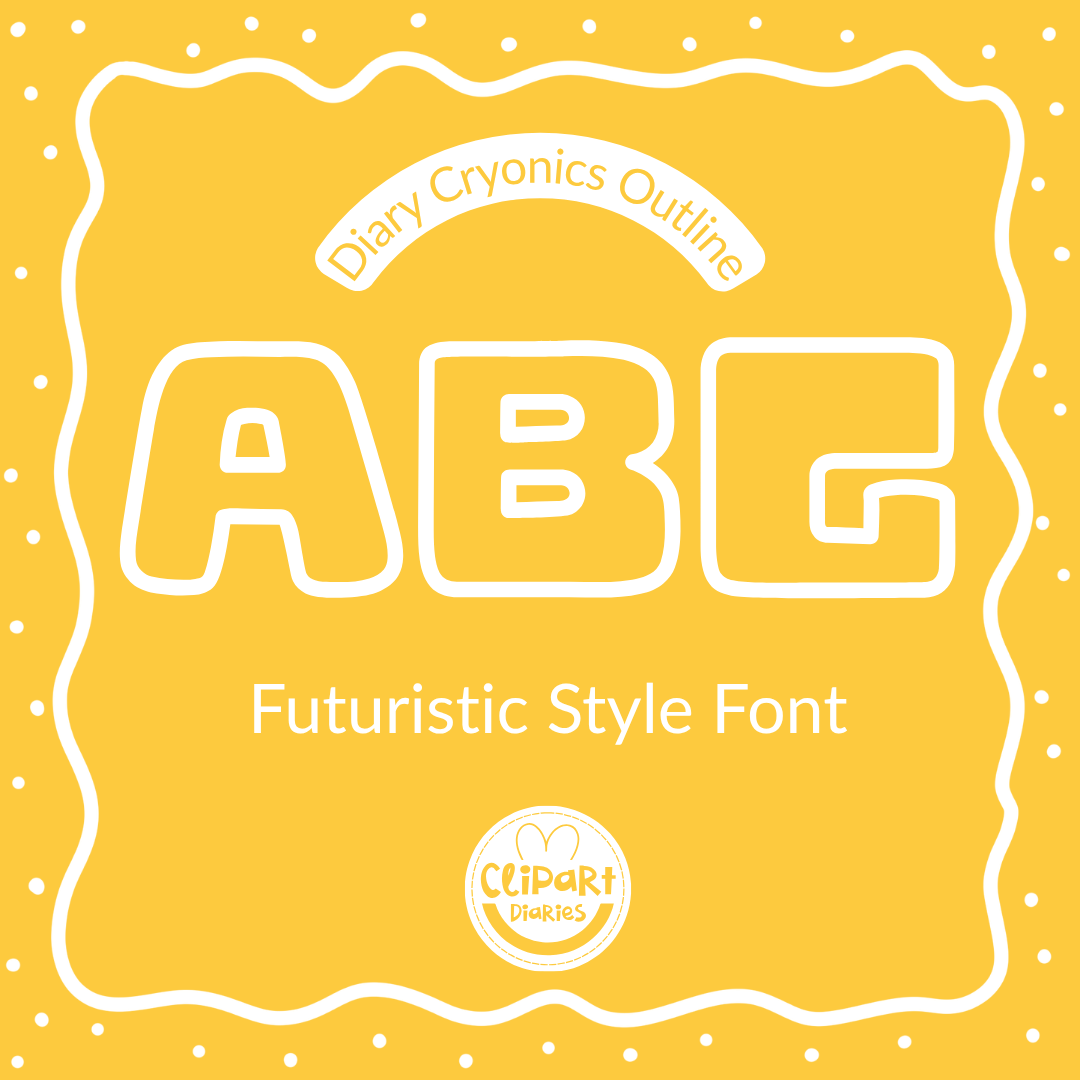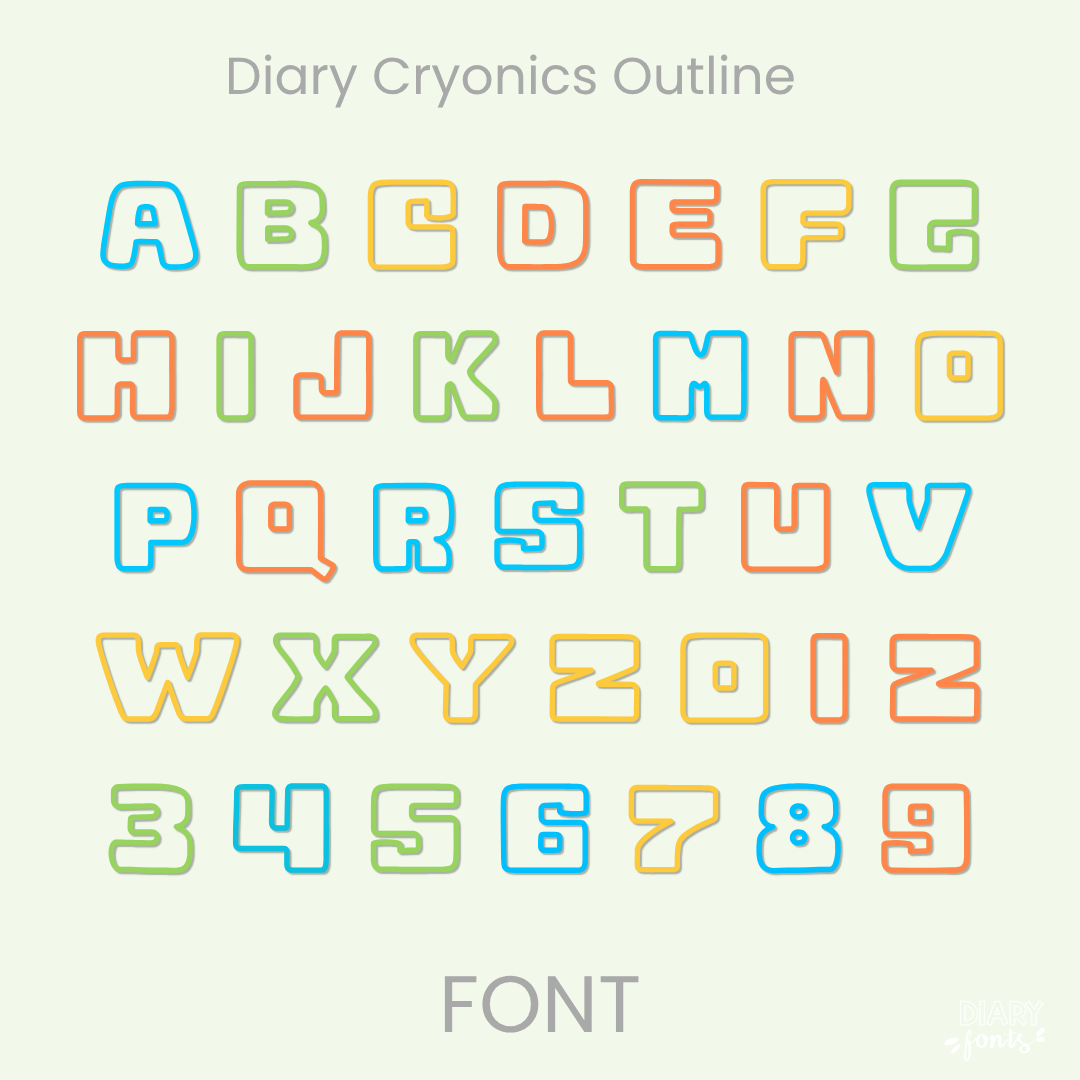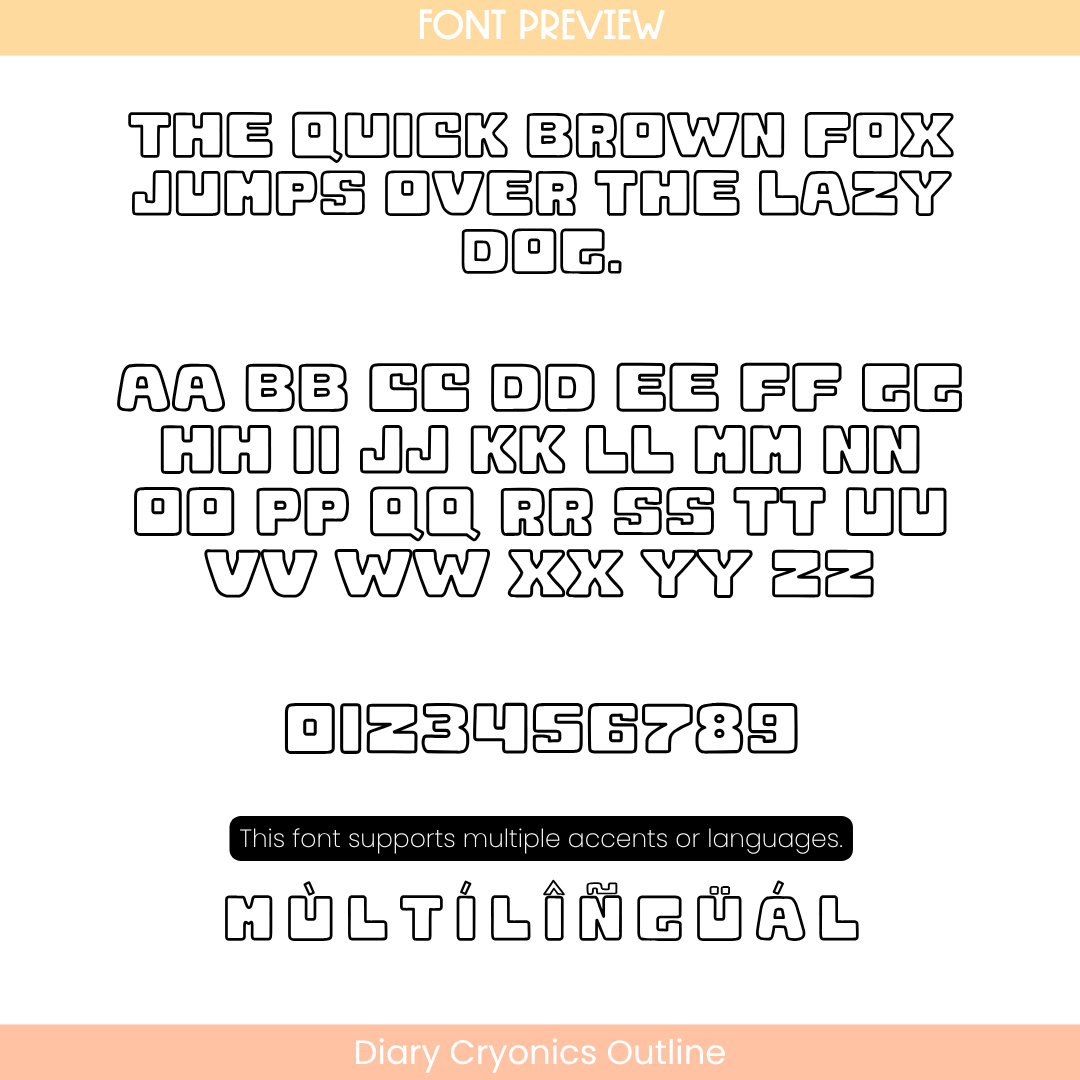
If you want to give your projects a cheerful and friendly look, Diary Cryonics Outline is an excellent choice. It features boxy, all-caps outline characters with sharp angles and a distinctive sci-fi style that mimics clean geometric lettering while remaining neat and handwritten. This makes it highly legible for students while still feeling playful. It is especially effective for bold headers, classroom labels, and primary school resources. The font includes a full set of uppercase layout letters, numbers, and multiple accents to support different languages. It is ready for use in Canva, MS Office, and Adobe Apps, and it works perfectly with iPad apps like GoodNotes and Procreate. Whether for personal classroom use or commercial resources, this font adds a soft and approachable aesthetic to your work.
Diary Cryonics Outline Font
The Diary Cryonics Outline is an open, retro-futuristic handwritten font designed to bring an eye-catching, tech-inspired layout style to your digital resources and classroom materials.